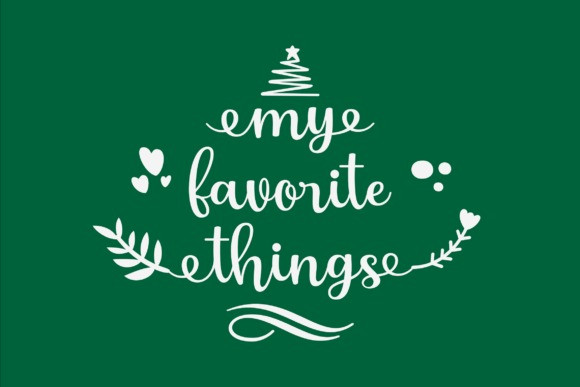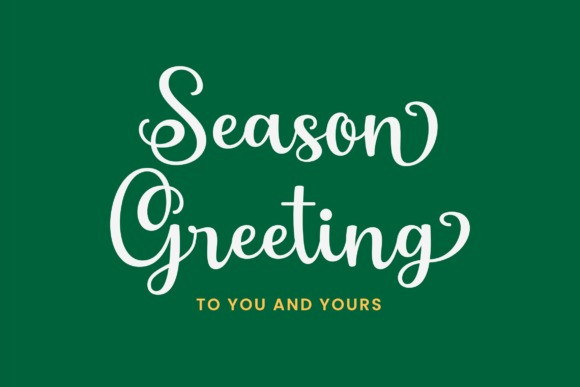
Chrisdia Script Font
Chrisdia Script Font is a sweet script font that comes with beautiful stylistic alternates and a delightful set of dingbats. It brings a warm, playful, and lovely touch to any design project, making it perfect for designers and crafters who love a cute handwritten look.